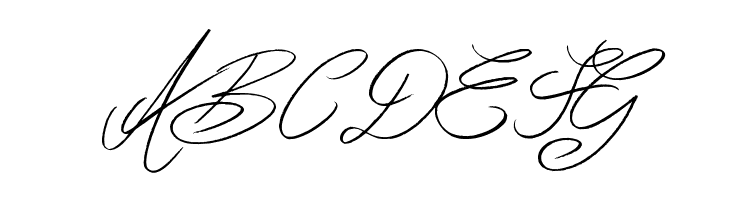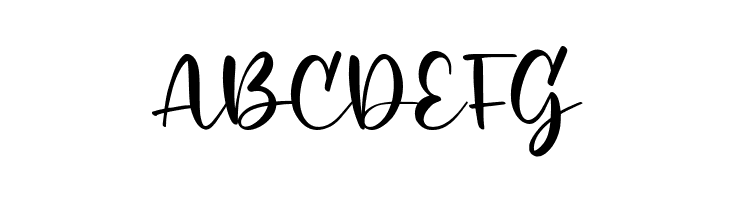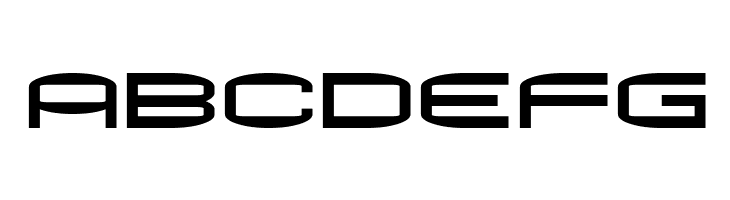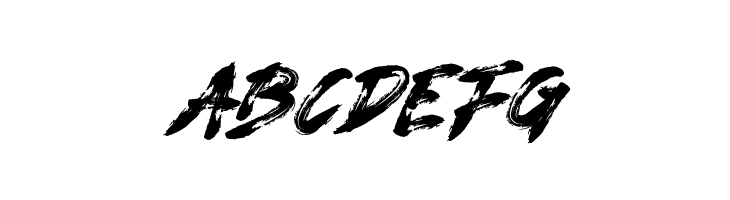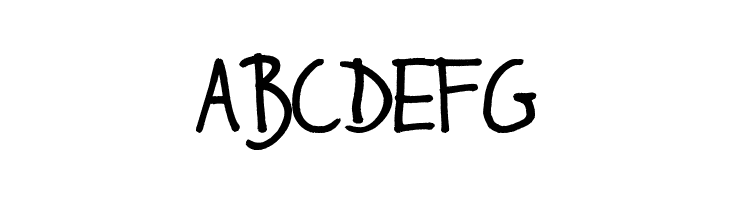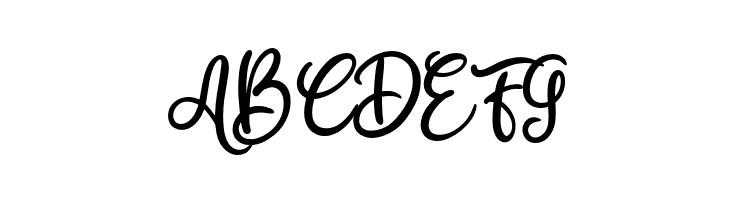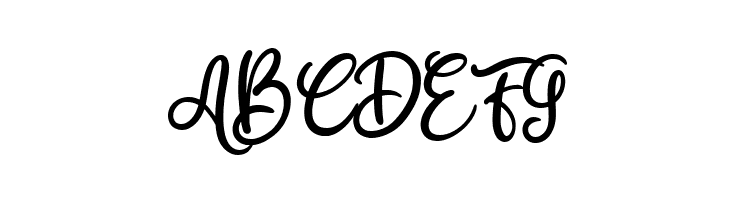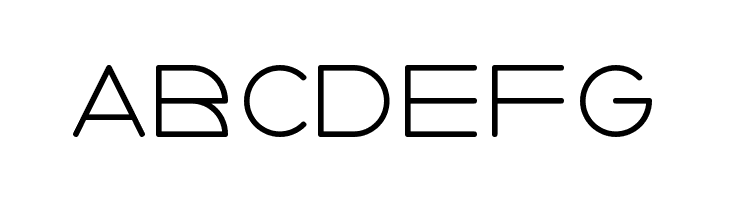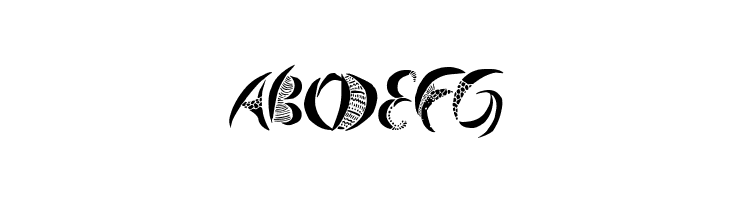
A playful and flowing script font with smooth, connected strokes.
A playful and flowing script font with elegant curves and connected strokes.
A futuristic, geometric font with clean lines and angular shapes.
A playful, hand-drawn comic style font with a casual and friendly appearance.
A bold, brush-style font with dynamic, textured strokes.
A modern, geometric font with clean lines and uniform stroke width.
A decorative and artistic font with intricate patterns and dynamic flow.
A playful, cursive font with a whimsical and feminine touch.